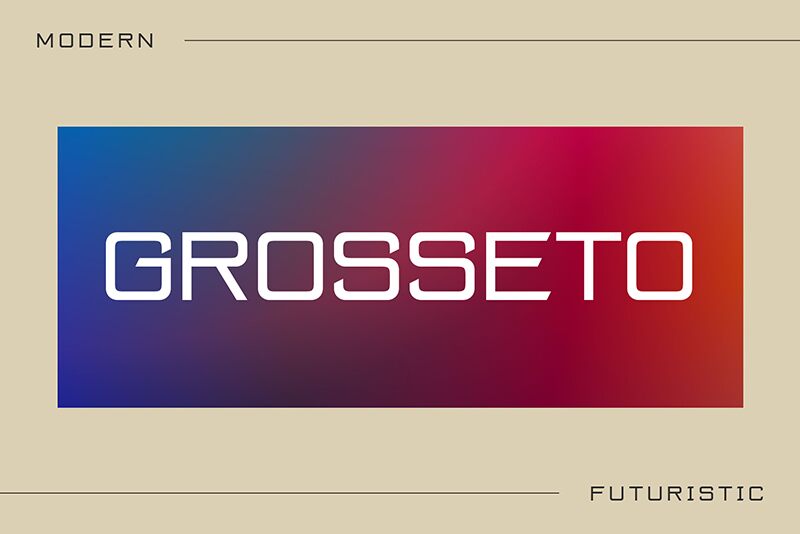
Grosseto Regular
Grosseto, crafted by the innovative BrandSemut, stands out as a sans serif font that brings a unique blend of semi-light weight and expanded width to the forefront of design. Characterized by its clean lines and modern proportions, Grosseto exudes a sense of clarity and spaciousness that makes it remarkably versatile for various creative endeavors.
The font's semi-light weight offers a gentle touch of elegance without compromising on readability, making it an excellent choice for both digital screens and printed material. The expanded width not only gives Grosseto a commanding presence but also enhances legibility across different sizes.
Its contemporary aesthetic is perfectly suited for branding projects, editorial layouts, and sophisticated advertising campaigns where a mix of style and function is paramount. Whether you're crafting minimalist designs or looking to make bold statements with your typography, Grosseto delivers an alluring appeal that transcends expectations.